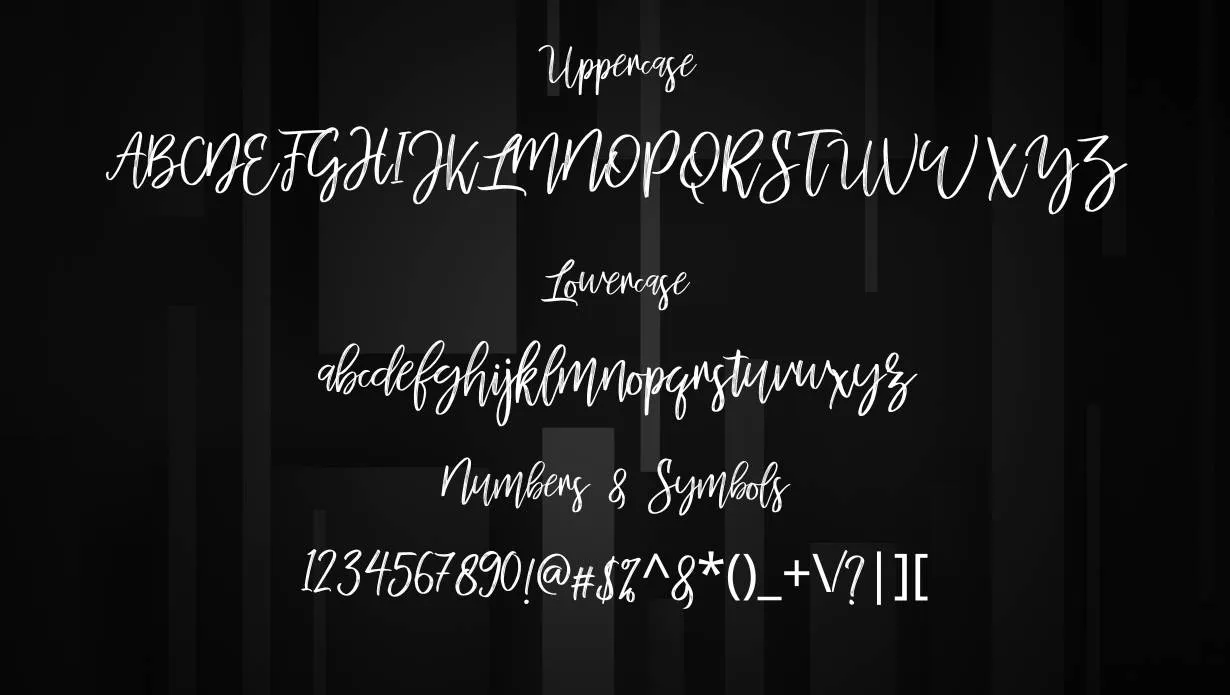
Mellony font is a handwritten love note, infusing your words with a personal and genuine touch. Like a soft embrace in text form, it’s perfect for crafting heartfelt messages or invitations.
The font’s soft and inviting weight, coupled with a casually proportioned width, transforms your text into a handwritten expression of warmth, creating an intimate connection with your reader.